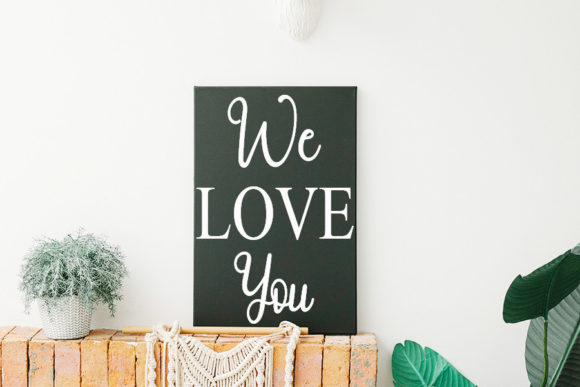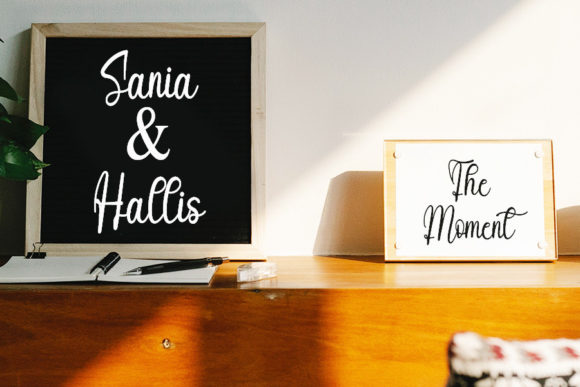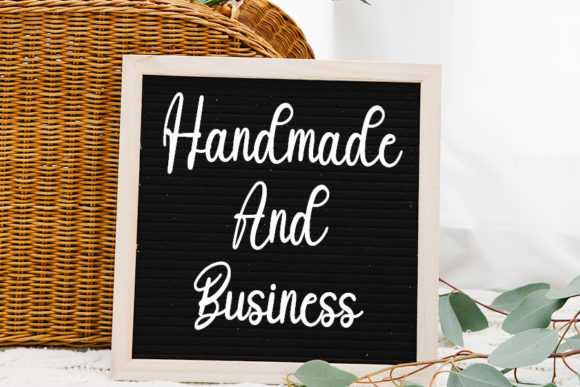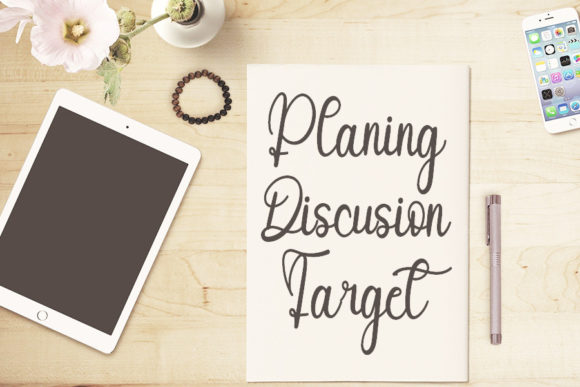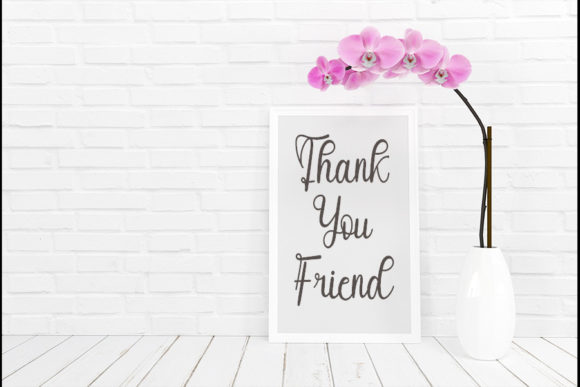
The Magical World of Birthday Font: A Designer’s Delight
I’ll never forget the time I was working on a birthday card project for a client, and I just couldn’t find the right font to capture the celebratory feel. The client wanted something elegant, yet playful, and I was determined to deliver. That’s when I stumbled upon the enchanting Birthday Font! ✨ This beautiful handwritten script font has since become a staple in my design toolkit, and I’m excited to share its magic with you.
An Honest Review of Birthday Font
So, what makes Birthday Font so special? Let’s dive into the good stuff! 🎉
• ✨ Romantic and elegant: Birthday Font adds a touch of sophistication to any project, making it perfect for greeting cards, invitations, and more.
• ✅ Versatile: From headlines to body text, this font adapts seamlessly to various design applications.
• 🎨 Handwritten charm: The font’s unique, hand-crafted feel brings a personal touch to your designs, making them stand out from the crowd.
Of course, no font is perfect, and Birthday Font has a few minor quirks:
• 🤔 Limited character set: While the font has a wide range of characters, it might not support every special character or language.
• ⚠️ Occasional kerning issues: As with any script font, you might need to adjust kerning manually to achieve optimal results.
The Story Behind Birthday Font
Legend has it that Birthday Font was created by a talented type designer who wanted to capture the magic of handwritten scripts. Inspired by vintage birthday cards and love letters, the designer poured their heart into crafting a font that would bring joy and romance to any project.
Font Name Birthday Font
Author FreshTypeINK
What makes Birthday Font so special? Its unique, handwritten charm and elegant feel make it perfect for romantic and celebratory designs.
Is Birthday Font suitable for body text? While it’s primarily designed for headlines and titles, Birthday Font can be used for body text in certain contexts, such as invitations or greeting cards.